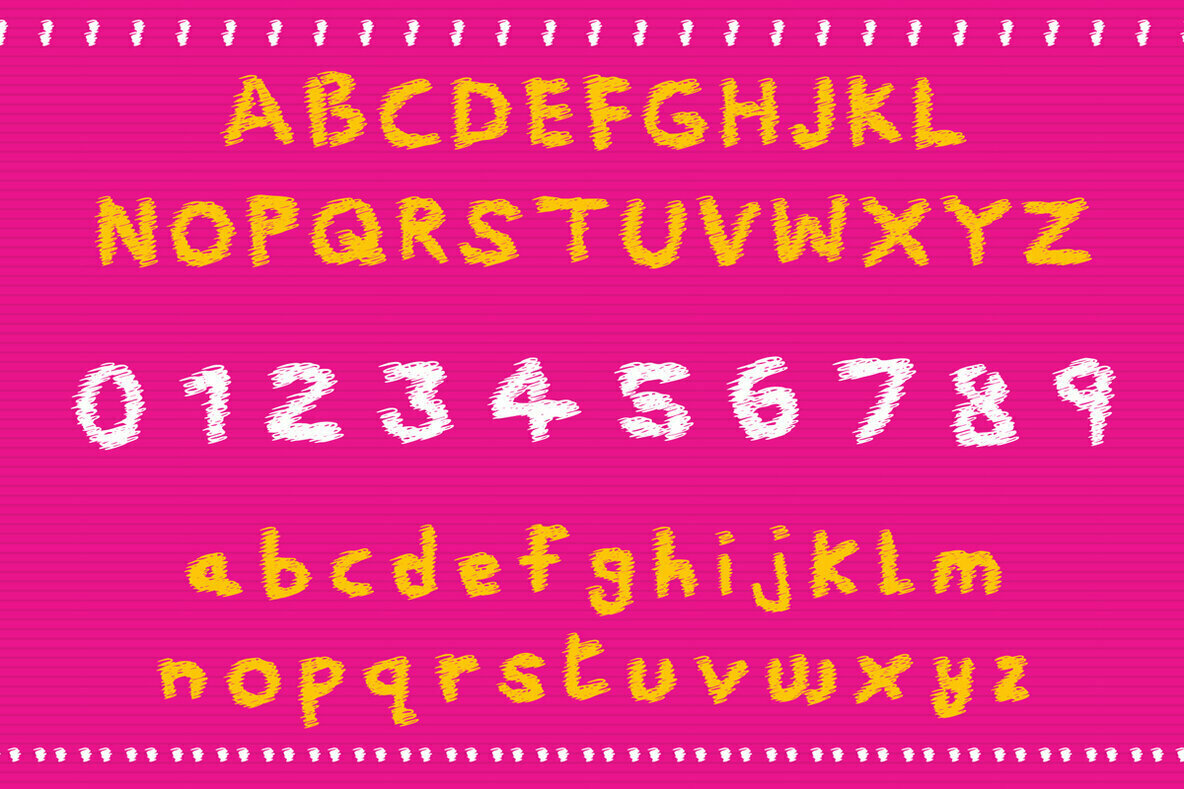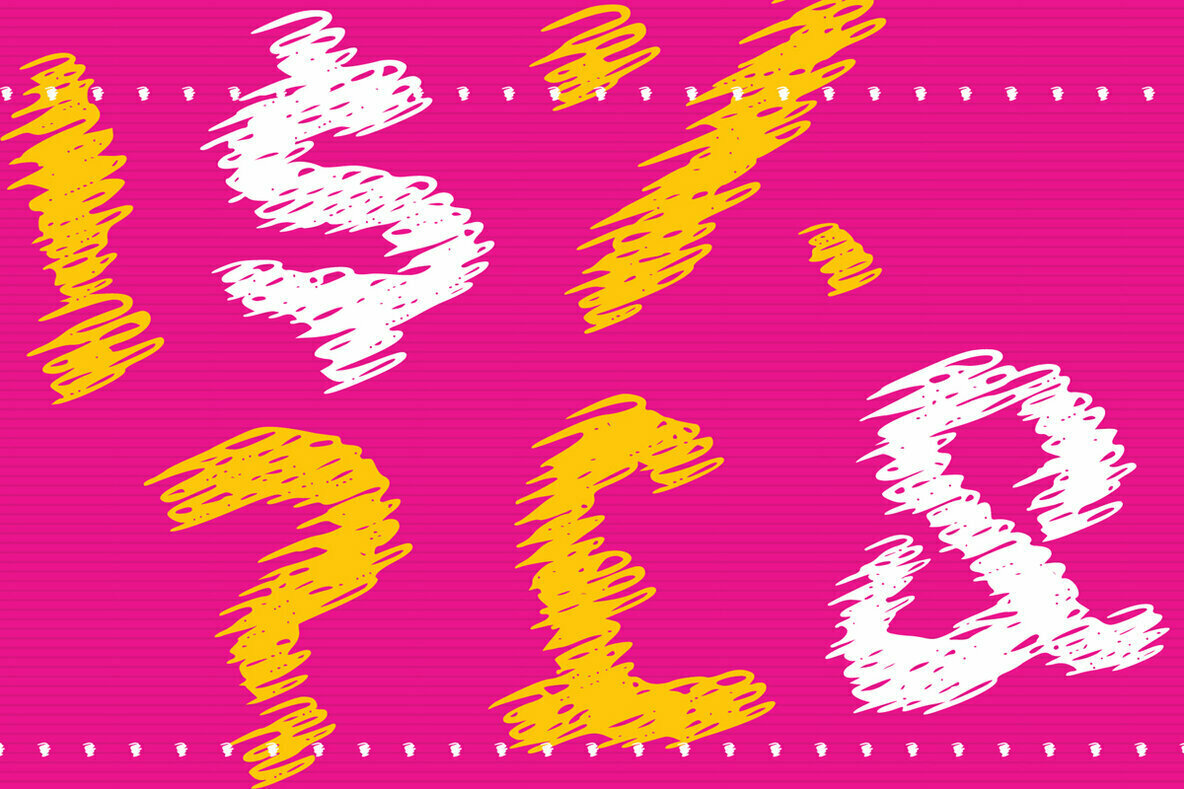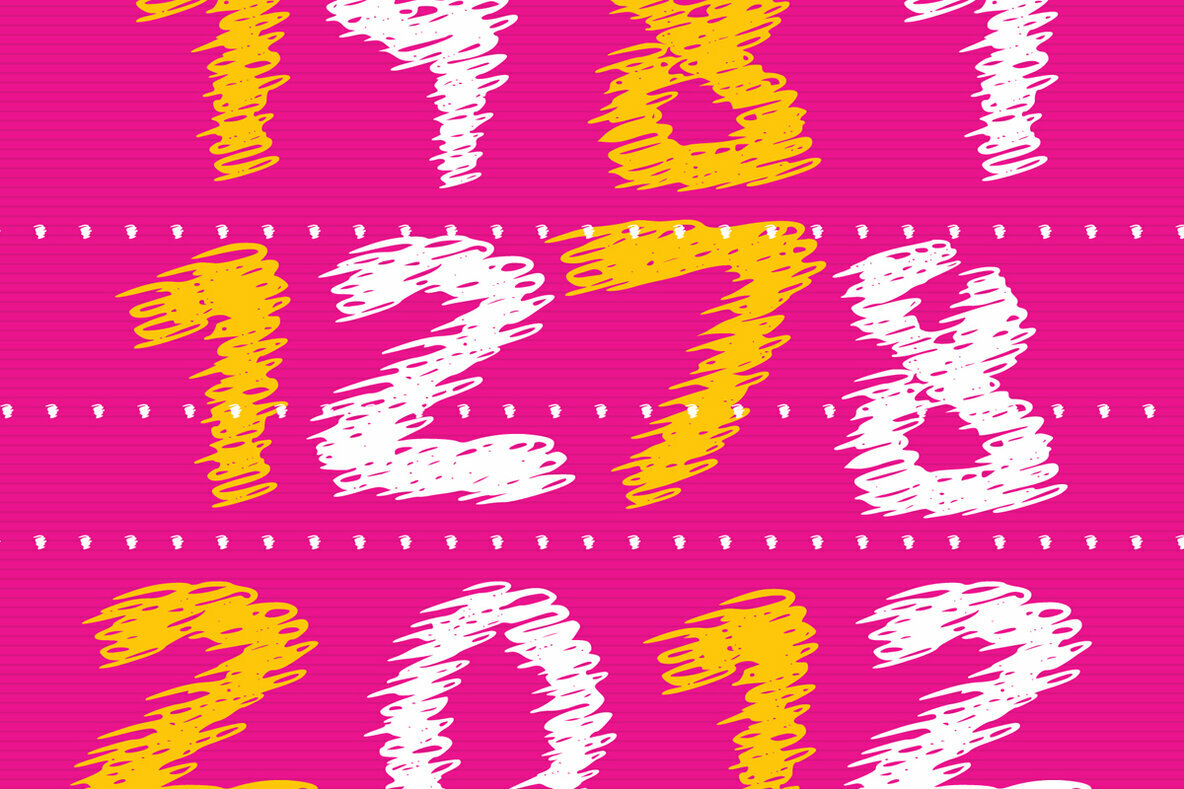
Phone Scribble Font
Phone Scribble Regular
Phone Scribble is an authentic display font with a fun touch. Use it to create outstanding and original designs!